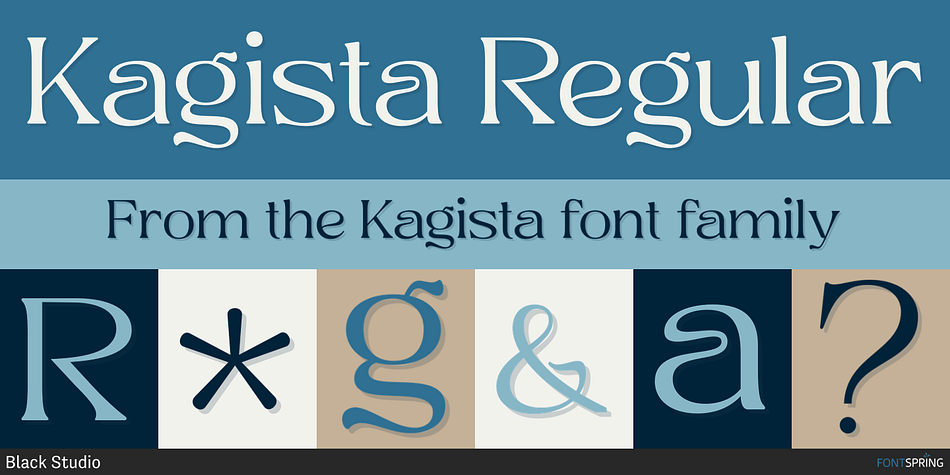
Kagista Regular
Kagista is a serif font family. This typeface has twenty-two styles and was published by Black Studio.
Kagista is a bold, modern variable display font designed for maximum visual impact. With adjustable weight and width axes, it offers flexibility for creating striking headlines, dynamic posters, and innovative branding. Its sharp lines and contemporary style make Kagista a perfect choice for projects that demand attention while maintaining a sleek and professional aesthetic.